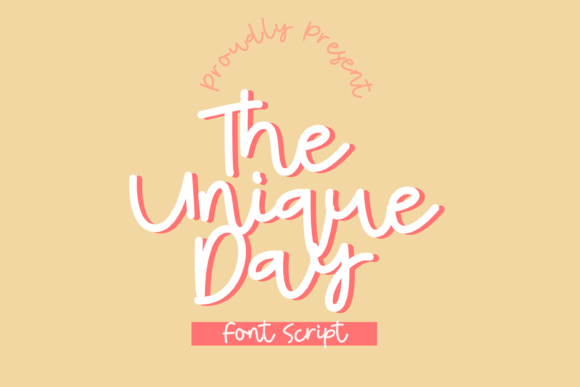
Introducing The Unique Day Font - A Whimsical Adventure for Your Creative Journey
Prepare to be captivated by The Unique Day Font, an enchanting script font that exudes a playful and carefree spirit. Its relaxed theme and lovely style make it the perfect choice for adding a touch of whimsy to your creative projects. Whether you're crafting children's books, playful designs, or heartwarming invitations, The Unique Day Font is here to turn your ideas into enchanting realities.
Uniquely Crafted for Storytellers and Designers
The Unique Day Font is a storyteller's dream, capable of transporting your readers to magical worlds filled with wonder and imagination. Its charming characters bring life to your words, inviting readers to immerse themselves in the captivating tales you weave. Designers, too, will find solace in this font's versatility. Its ability to elevate any creation knows no bounds, making it an indispensable tool for creating captivating logos, enchanting branding, and eye-catching social media posts.
A Journey Through Endless Possibilities
With The Unique Day Font, the possibilities are infinite. Let your creativity soar as you explore a world of vibrant colors, whimsical illustrations, and captivating designs. This font has the power to transform the ordinary into the extraordinary, turning mundane tasks into magical experiences. Join the countless artists, designers, and storytellers who have embraced The Unique Day Font and embarked on a journey of endless creative possibilities.